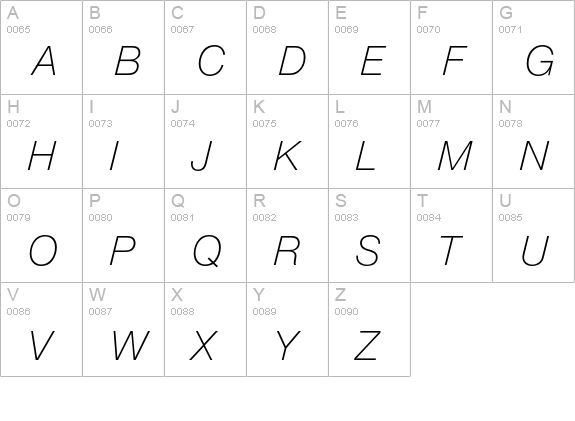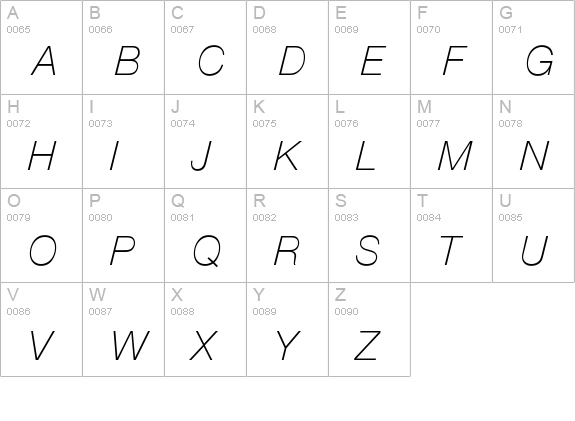
Olnova-LightIta is a sophisticated and elegant font that exudes a sense of modernity and style. Its sleek and slender design makes it perfect for adding a touch of sophistication to any project. The delicate curves and clean lines of Olnova-LightIta create a sense of refinement and beauty that is sure to impress. This stunning font is not only visually appealing but also highly versatile, making it suitable for a wide range of design projects. Whether you are creating a logo, website, or print materials, Olnova-LightIta will help you achieve a polished and professional look. And the best part? Olnova-LightIta is free to download at FontsMarket.com! This means you can add this gorgeous font to your collection without any cost, making it a valuable addition to your design toolkit. Don't miss out on the opportunity to elevate your projects with the timeless charm of Olnova-LightIta. Download it today and start creating stunning designs that stand out from the rest.